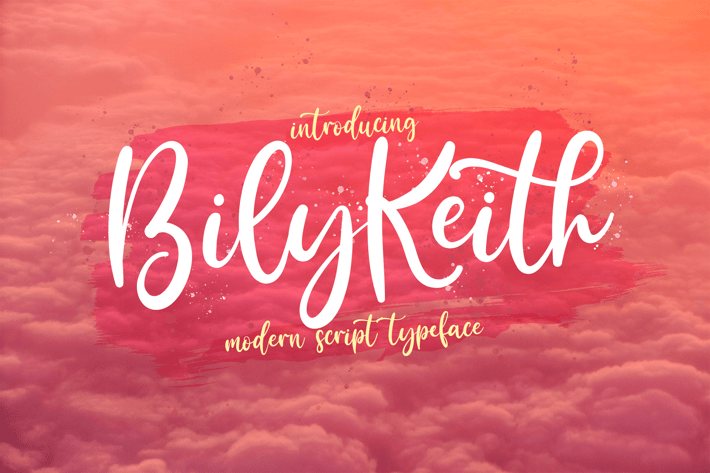
Bily Keith - Modern Script Font
Introducing Bily Keith - Modern Script Font
Bily Keith is a flowing handwritten font, described by an elegant touch, perfect for your favorite projects. Fall in love with its incredibly distinct and timeless style and use it to create spectacular designs!